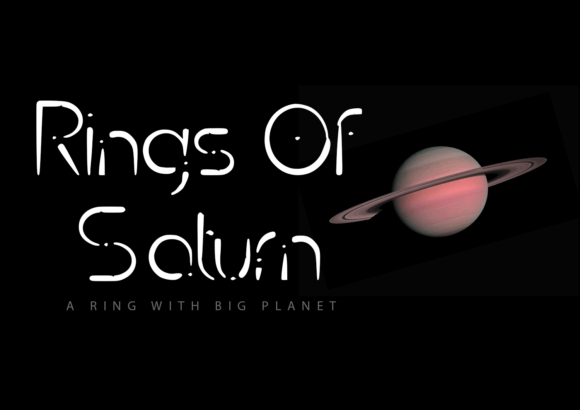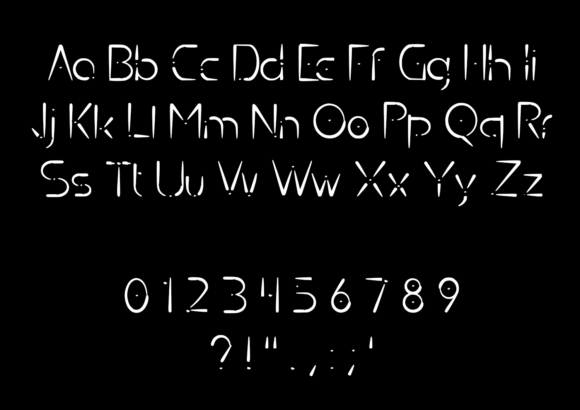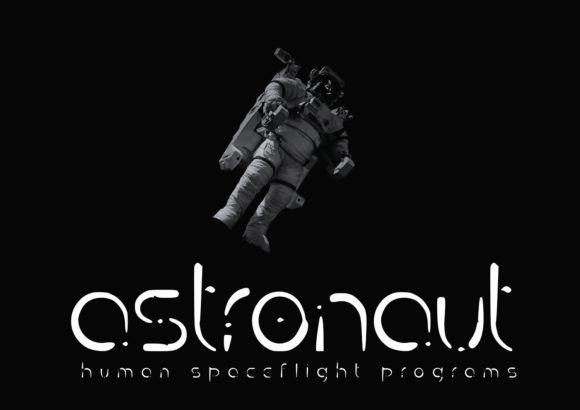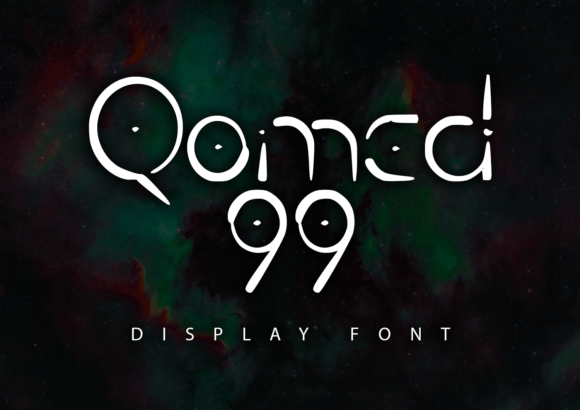
Qomed 99 is a space vibe display font.
It is inspired by the space ambiance, which makes its appearance cool and modern This typeface can be used for branding, posters, apparel, merchandise, stickers, or anything that needs an innovative, futuristic look.